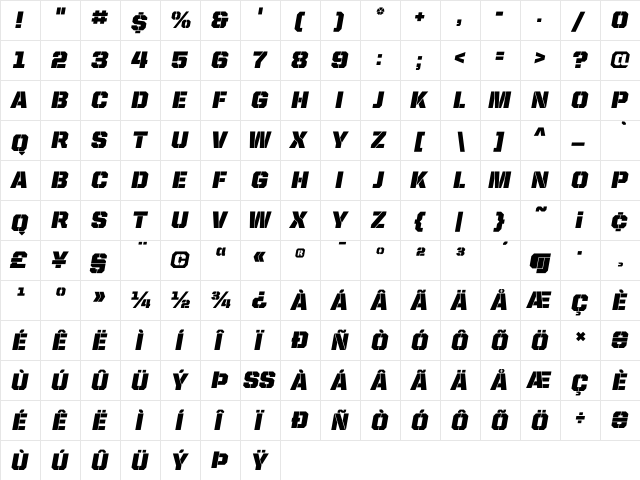
United Italic Reg Stencil
| Style | Stencil |
| Foundry | House Industries |
| Designer | Tal Leming |
Design Context for United Italic Reg Typeface
United Italic Reg borrows the utilitarian aesthetic of stencil lettering, with its characteristic cutaways and no-frills construction lending an industrial edge. The dynamic lean of this cut emphasises speed and emphasis in any layout.
Ideal for industrial branding, streetwear, military-adjacent aesthetics, and urban signage projects.
Pro Tip: Pair United Italic Reg with raw, utilitarian design elements — exposed concrete textures, flat colour, and minimal ornamentation suit it well.